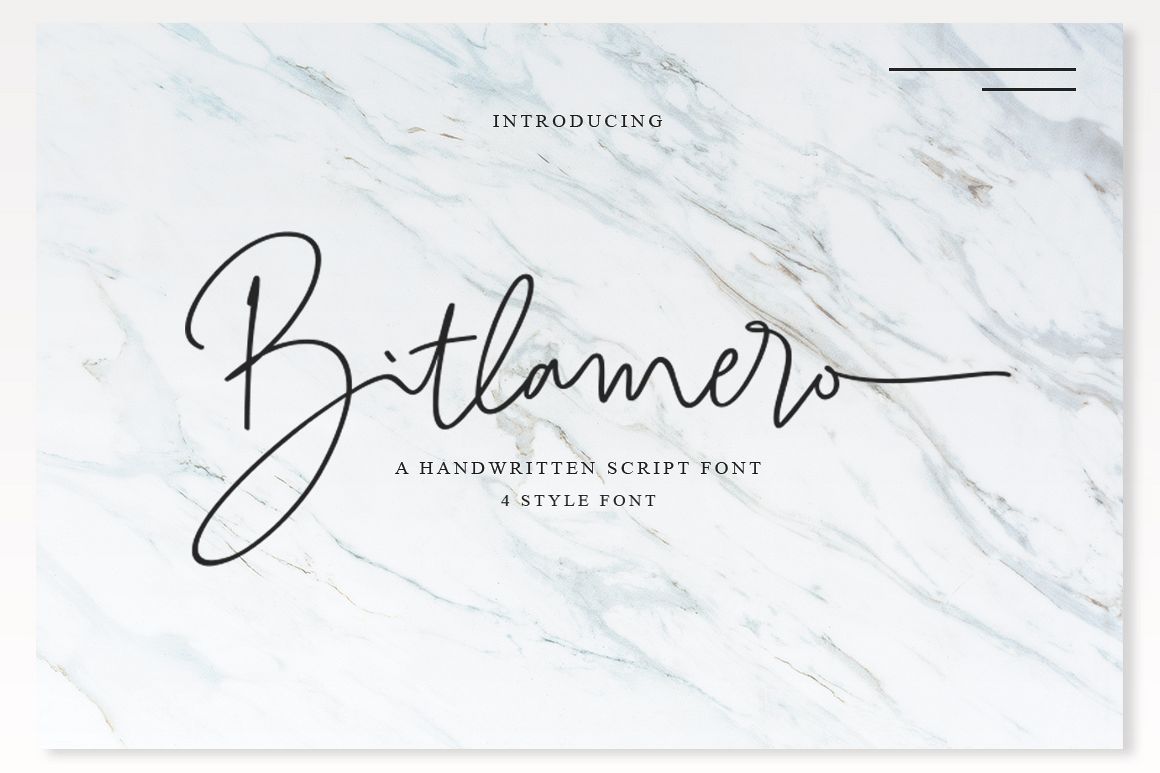
Bitlamero Script
"Bitlamero Script" is a handwritten signature typeface coming with more than 389 stylistic ligatures. Its classy energetic look makes it the perfect fit for feminine logos, printed quotes, invitation cards, social media headers, product packaging and a lot more!
• Basic Latin A-Z and a-z
• Symbols
• Stylistic Set
• Multilanguage Support